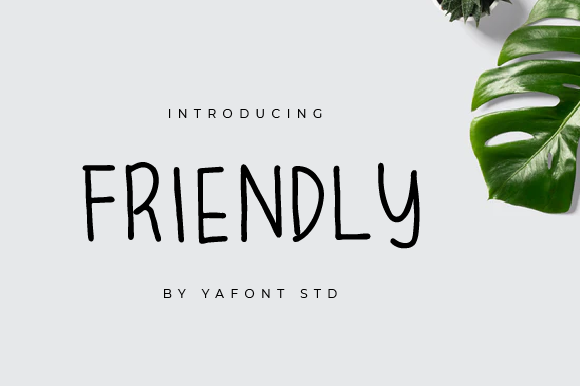
Friendly Font
Friendly is a simple and thin lettered handwritten font. Its natural and unique style makes it incredibly fitting to a large pool of designs.